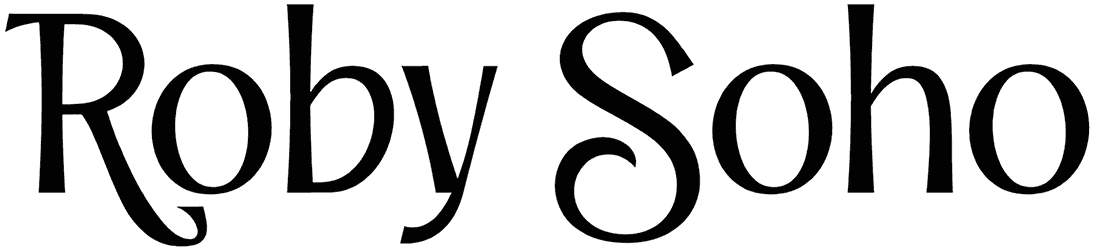
Roby Soho Font
Roby Soho is a thick sans serif font with a classic touch, perfect for showing your design in a simple yet impressive way. Thanks to its versatility and good legibility, this invitation font provides the conditions for c…
Roby Soho is a thick sans serif font with a classic touch, perfect for showing your design in a simple yet impressive way. Thanks to its versatility and good legibility, this invitation font provides the conditions for creating durable projects. You can use it for book covers, storefront signs, movie posters, T-shirt prints, and advertising aims.